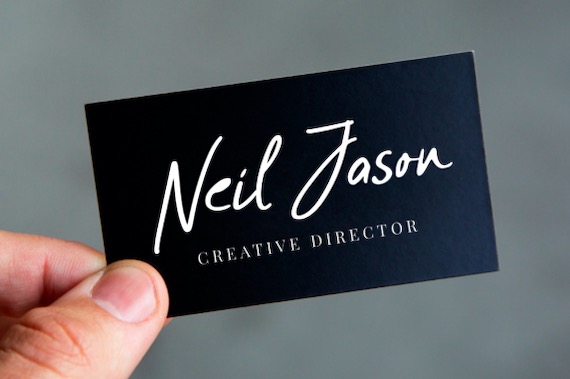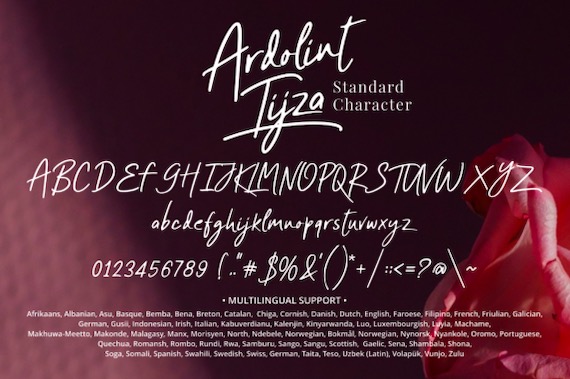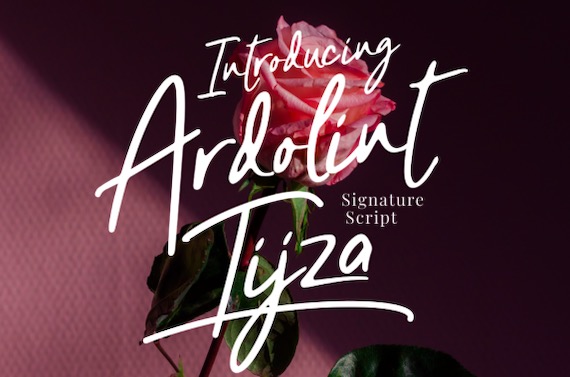
Ardolint Tijza Font
Ardolint Tijza is a delicate & paint-brushed handwritten script font that was created and shared by Mabhal Studio. This script font is suitable for any designs, for example, logos, branding projects, labels, photography, watermark, special events, and all your other lovely projects that need a beautiful script taste.